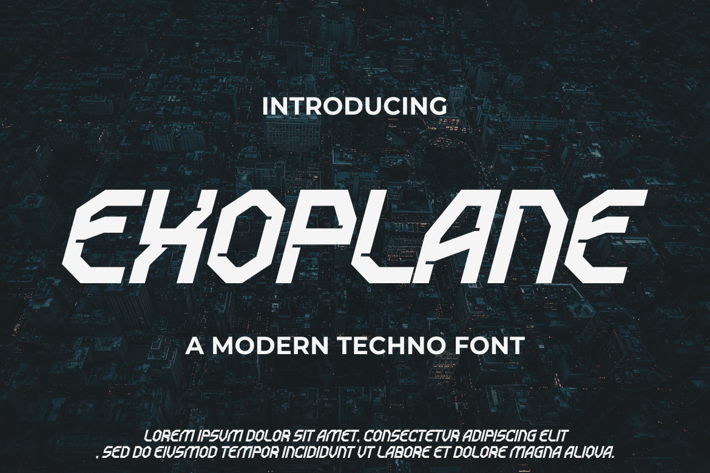
EXOPLANE FONT
Introducing our new product EXOPLANE FONT - Modern Font
EXOPLANE FONT - Modern Font is a bold and authentic display font. The font is suitable for any branding project like logo, t-shirt printing, esport, and many more. outstanding in a wide range of contexts.